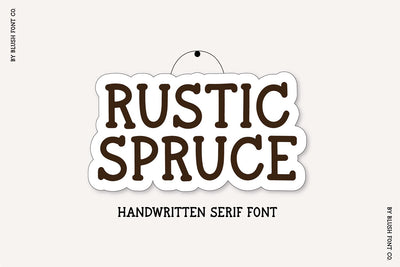
Rustic Spruce Serif Handwriting
"Rustic Spruce"
A cute handwriting serif font. This font is great for note-taking, digital planners, Goodnotes, and rustic fall projects.
This font comes with all caps glyphs, numbers, and basic punctuation.